As women build brands, every detail carries meaning through colors, curves, and typography. Girly fonts, in particular, help express visual identity with softness and elegance before a single word is read. Talking about visual impact, research shows it takes only 50 milliseconds to form a brand impression. So, are you curious which fonts are the best? Read on!
Key Takeaways
- Girly fonts enhance feminine branding by conveying softness, elegance, and emotional appeal.
- Choosing the right girlie fonts helps increase visual impact and connect better with female audiences.
- Mixing chic, warm, and luxury styles offers flexibility for various branding and design needs.
24 Must-Have Girly Fonts for Feminine Design Projects
Studies show that emotional triggers often spark impulsive buying habits, especially among female audiences, and feminine fonts support that because they have soft curves. To help you find the perfect match, we’ve curated a collection of typefaces below. Let’s get typesetting!
A Chic Collection for the Artistically Minded
1. Sicelka
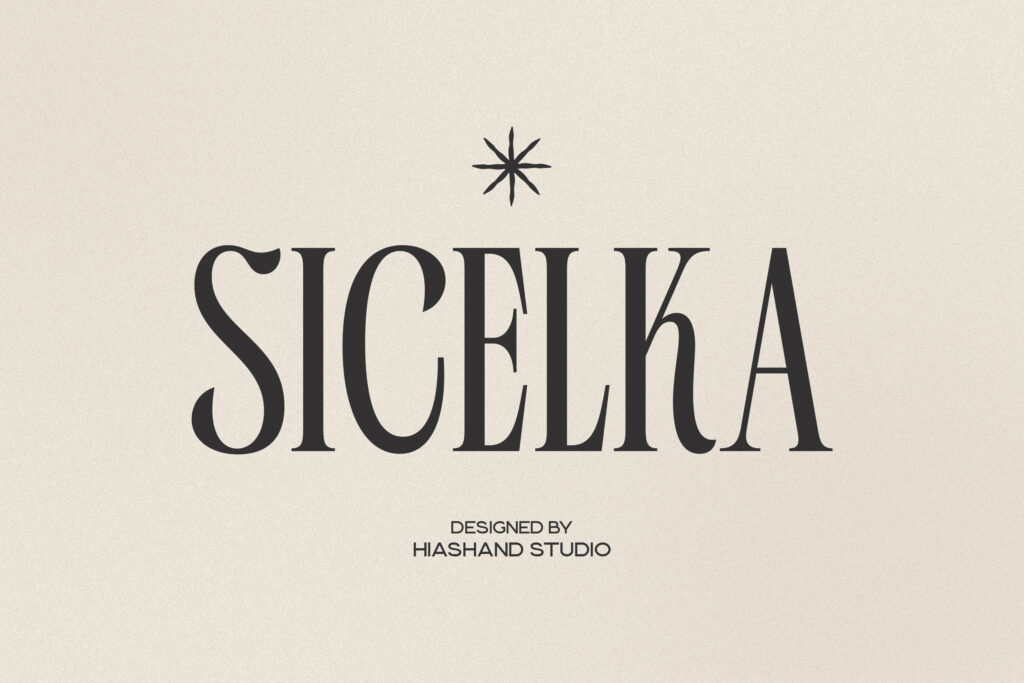
Slim letterforms with refined contrast create a polished, graceful look. Its soft curves bring a feminine touch for fashion editorials or beauty branding.
2. Conega
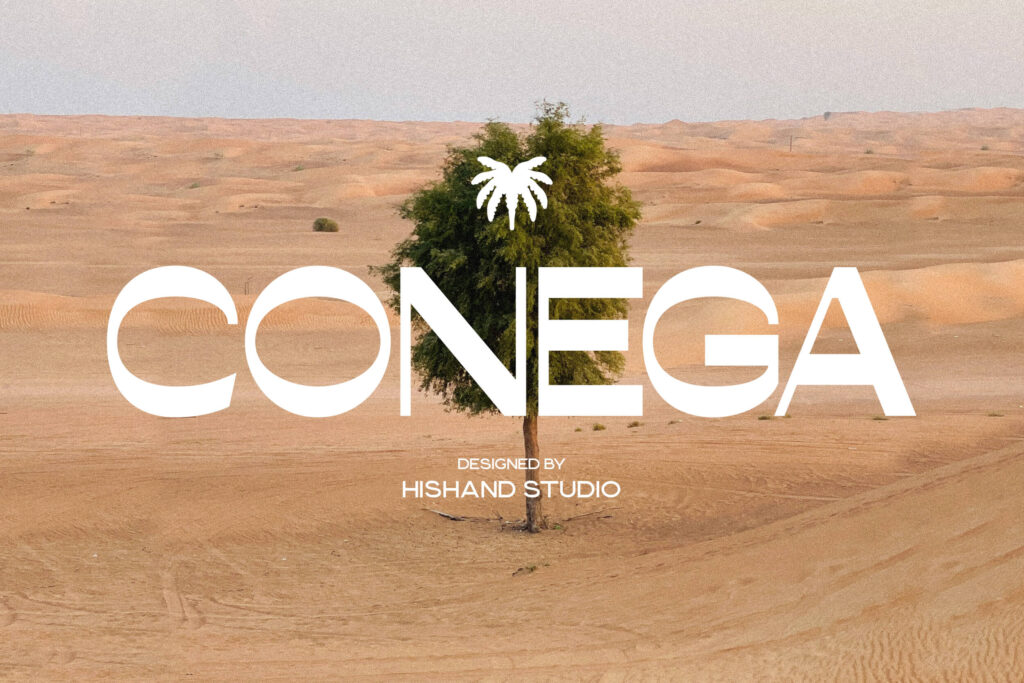
Clean lines paired with subtle curves offer a modern yet graceful feel. It fits lifestyle brands that want a minimal but still girly identity.
3. Celarin
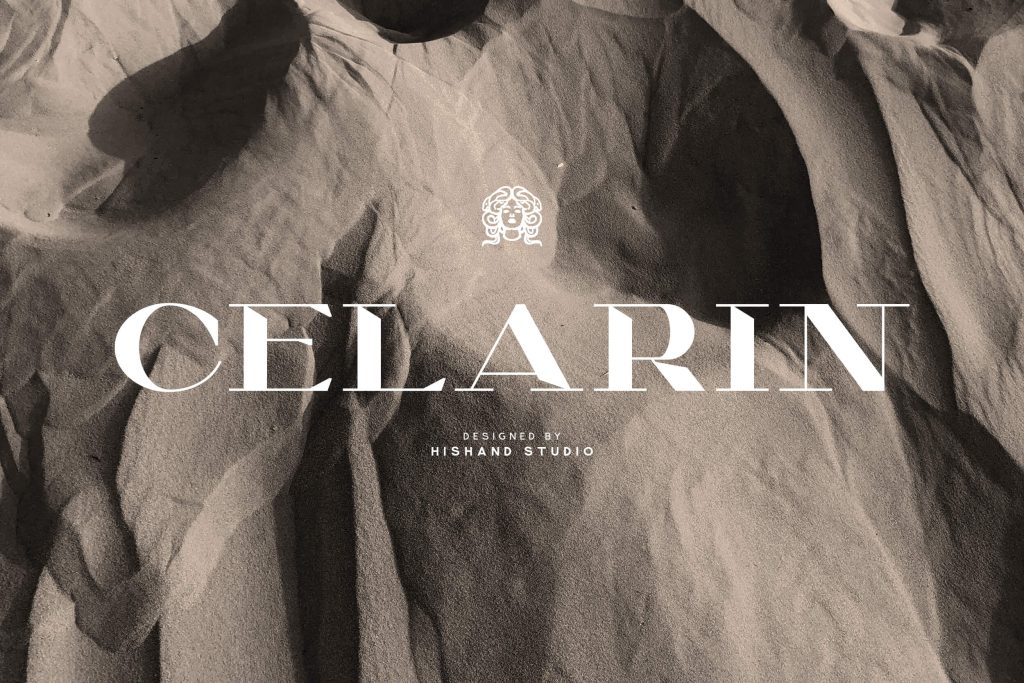
Balanced proportions give it a sleek and contemporary presence. The gentle curves add softness that complements the aesthetic of boutique logos or packaging.
4. Conjiote
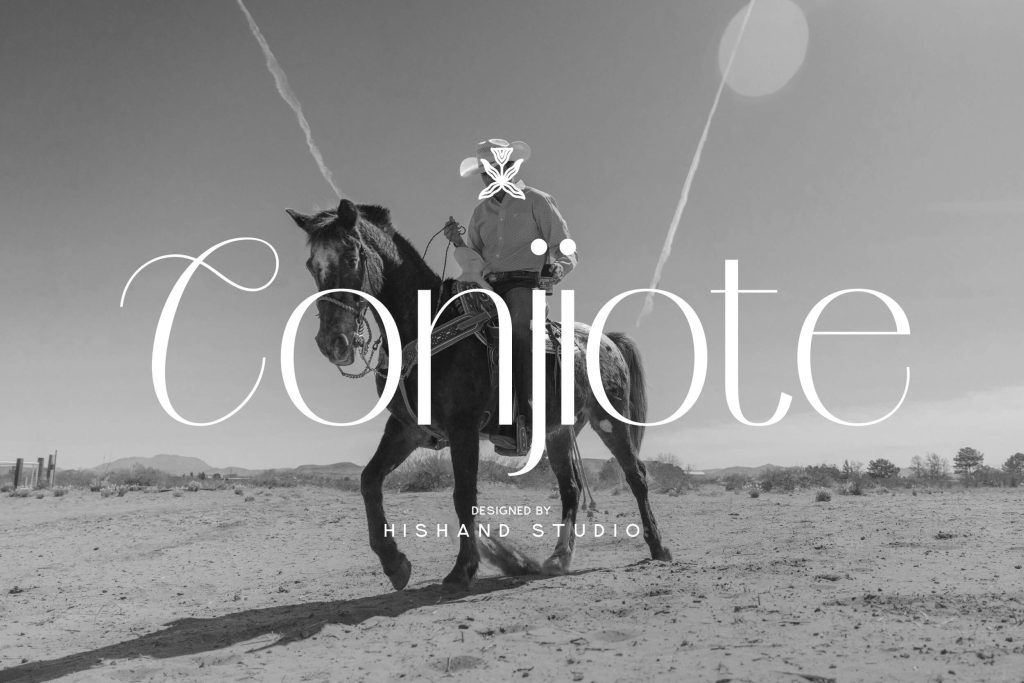
Crisp and structured, yet softened by rounded edges. It works beautifully for feminine brands seeking clarity without losing charm.
5. Amarieta
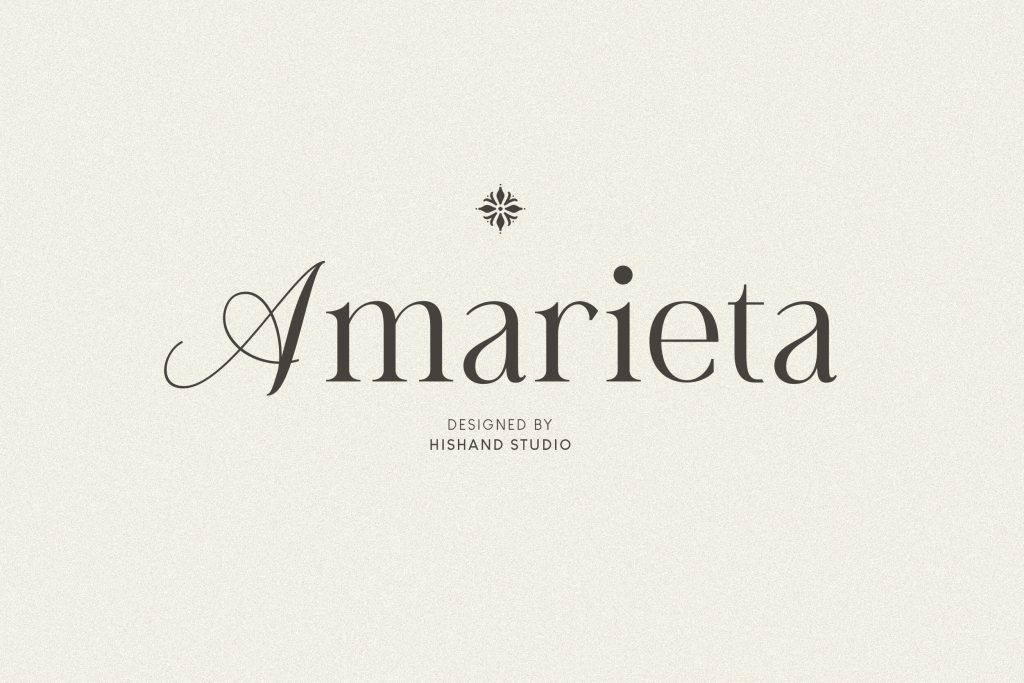
Elegant strokes with a slightly flowing rhythm create a romantic impression. This font suits wedding designs and luxury invitations perfectly.
6. Bulgatry
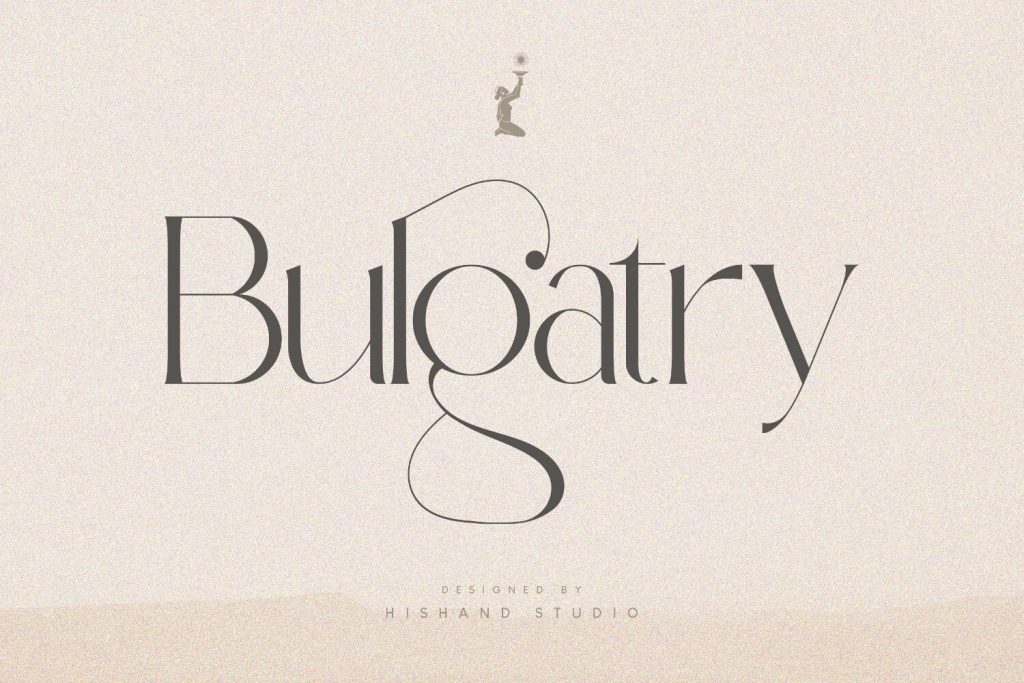
High contrast and graceful serifs deliver a sophisticated aesthetic. Its feminine appeal shines in editorial layouts and premium branding.
7. Le Atallier
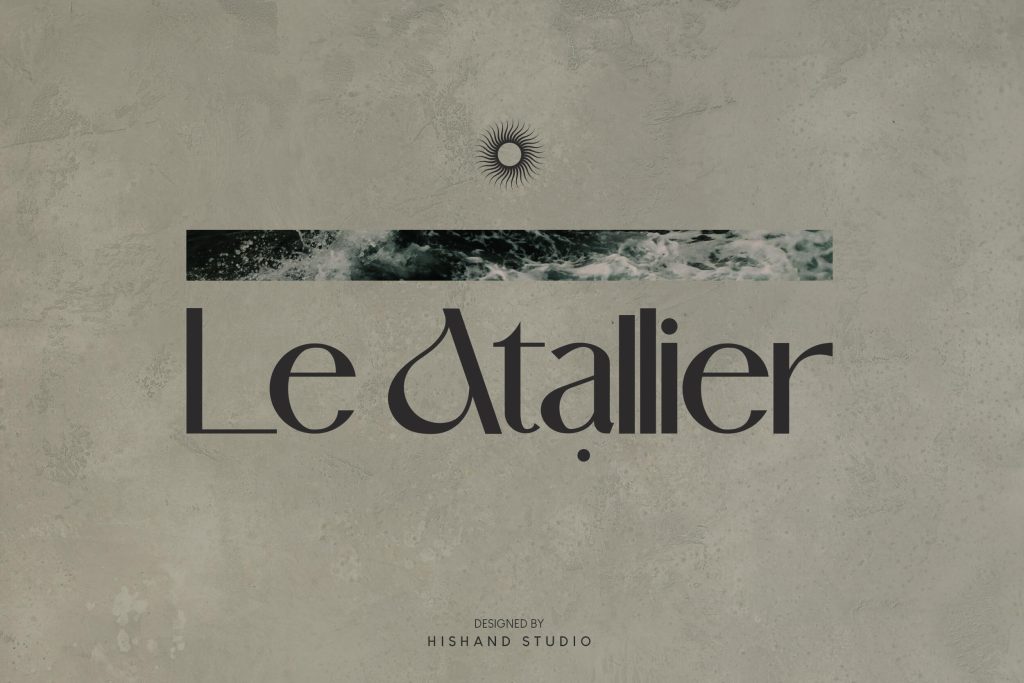
Minimalist shapes combined with smooth curves create understated elegance. This is one of the girly fonts that fit modern feminine brands with a clean visual direction.
8. La Gagliane
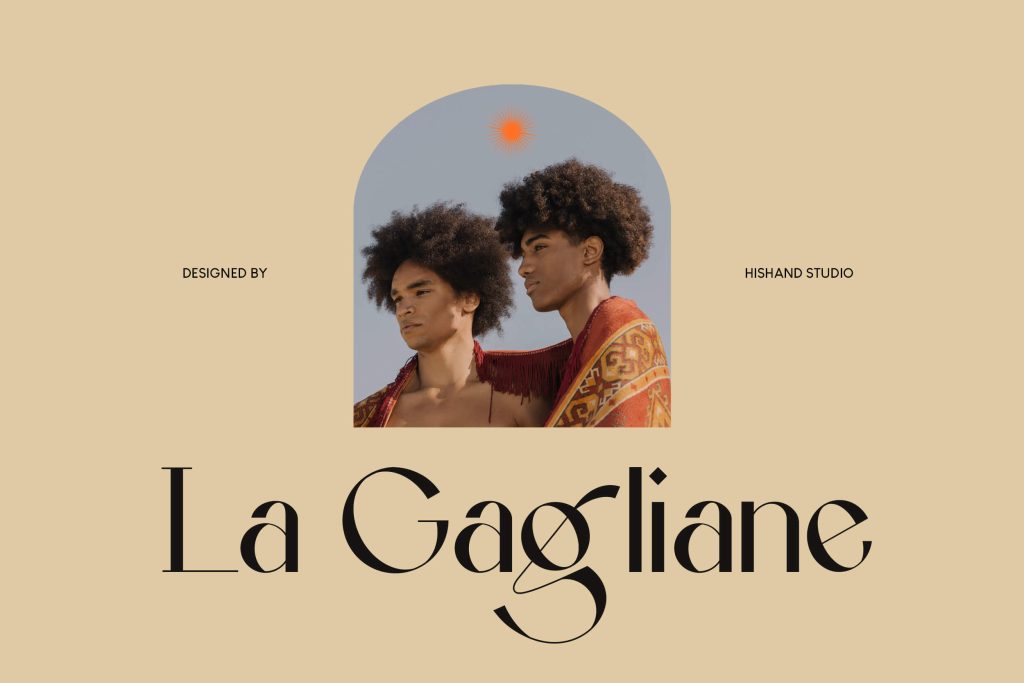
Classic structure meets modern refinement in every letter. The subtle softness enhances its girly appeal for timeless branding projects.
9. Dolce Amyara
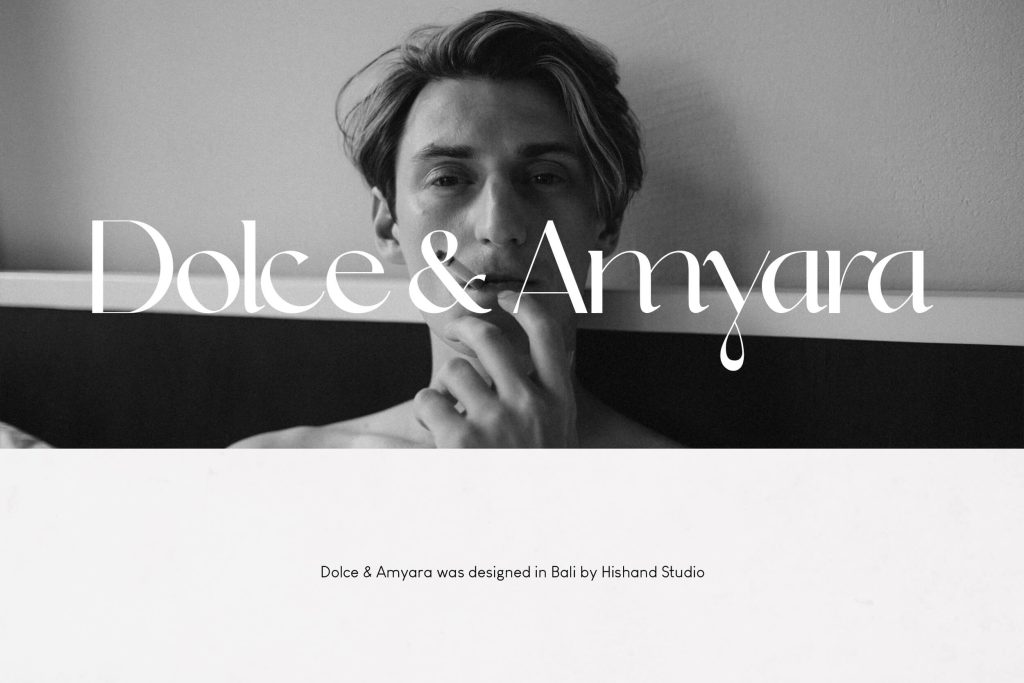
Stylish curves and balanced spacing create a chic visual harmony. It fits beauty products and fashion campaigns targeting a female audience.
Warmly Curated Typefaces for Genuine Connection
10. Managiri
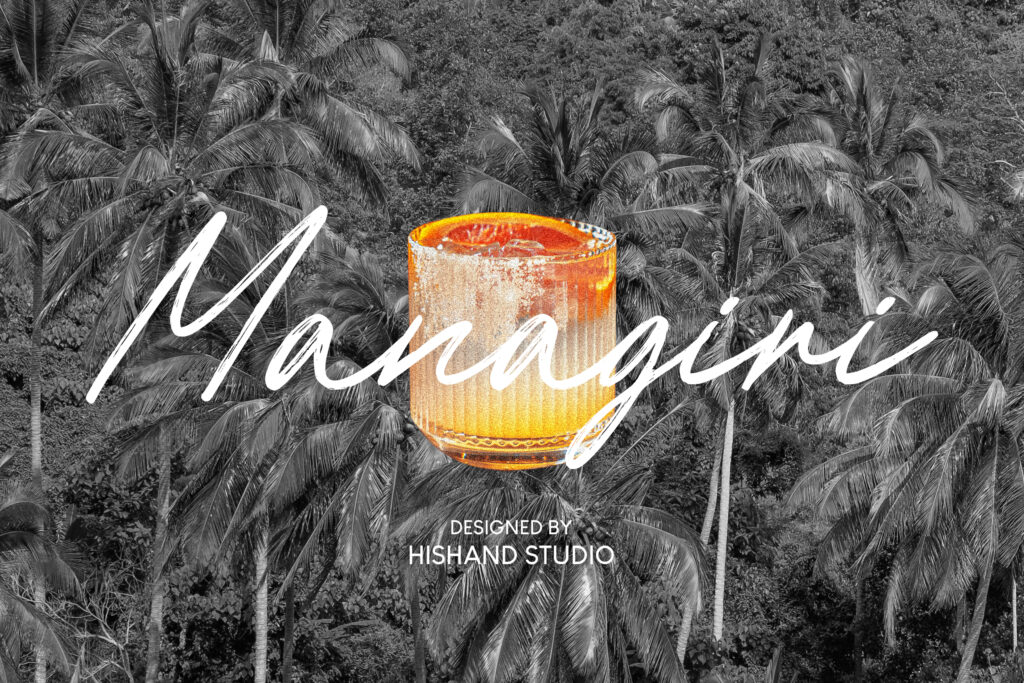
Loose brush strokes give it an organic and friendly feel. Its playful flow adds a girly warmth perfect for social media graphics.
11. Berawa
Soft textures and natural movement create a relaxed personality. It suits lifestyle branding that wants to feel personal and inviting.
12. Gelapitto
Smooth handwritten curves evoke authenticity and charm. This font works well for personal branding and creative storytelling.
13. La Garpia
La Garpia offers a seamless blend of elegant strokes and a hand-inked aesthetic. Its flowing curves radiate a feminine energy that feels tailor-made for high-end stationery or boutique brand packaging.
14. Malverya
Fluid lines mimic a natural signature with stylish flair. It adds a personal, girly touch to logos and brand identities.
15. Pamlla
Gentle curves and smooth connections create a calming look. It’s perfect for wellness brands targeting a female audience.
16. Paline
Playful strokes with balanced spacing feel light and expressive. This is one of the most beautiful girly fonts that shines in digital content and feminine marketing visuals.
17. Wina Aprilina
The delicate handwritten style gives it a soft emotional tone. It fits perfectly for invitations and heartfelt design projects.
18. Kally Dreams
Consistent line weight creates a clean yet friendly appearance. Its simplicity adds a subtle girly charm with modern designs for skincare products.
Luxury Choices for a High-Status Brand Presence
19. De Martega
Sharp contrasts and elegant structure create a high-end feel. The refined curves add femininity suited for luxury branding.